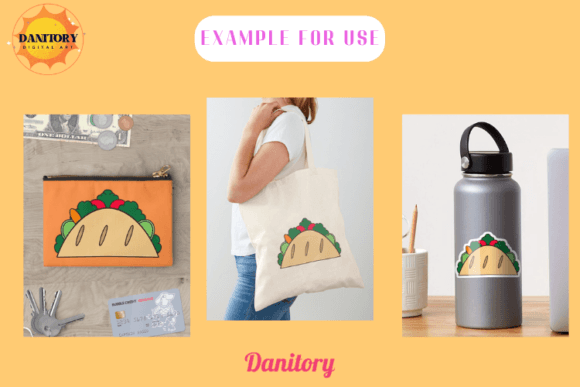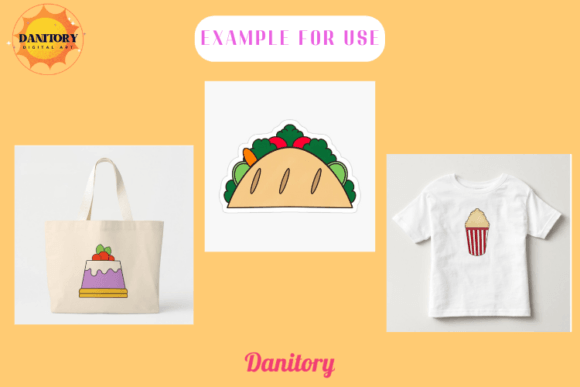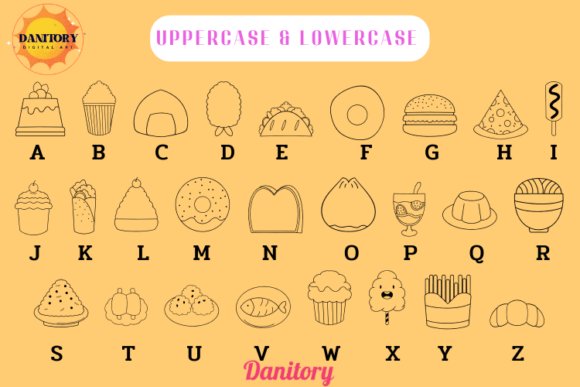
Introduction to Food Diary Font
The food diary is a hand-drawn dingbats font that is cute and playful.
This cute font is perfect for planners craft projects Add digital designs, presentations, worksheets, greeting cards, and more to your creative projects.
Key Features of Food Diary Font
Why Choose Food Diary Font?
Food Diary Font offers exceptional quality and versatility, making it a valuable addition to your design toolkit. Whether you’re creating for personal projects or commercial use, Food Diary Font delivers professional results.